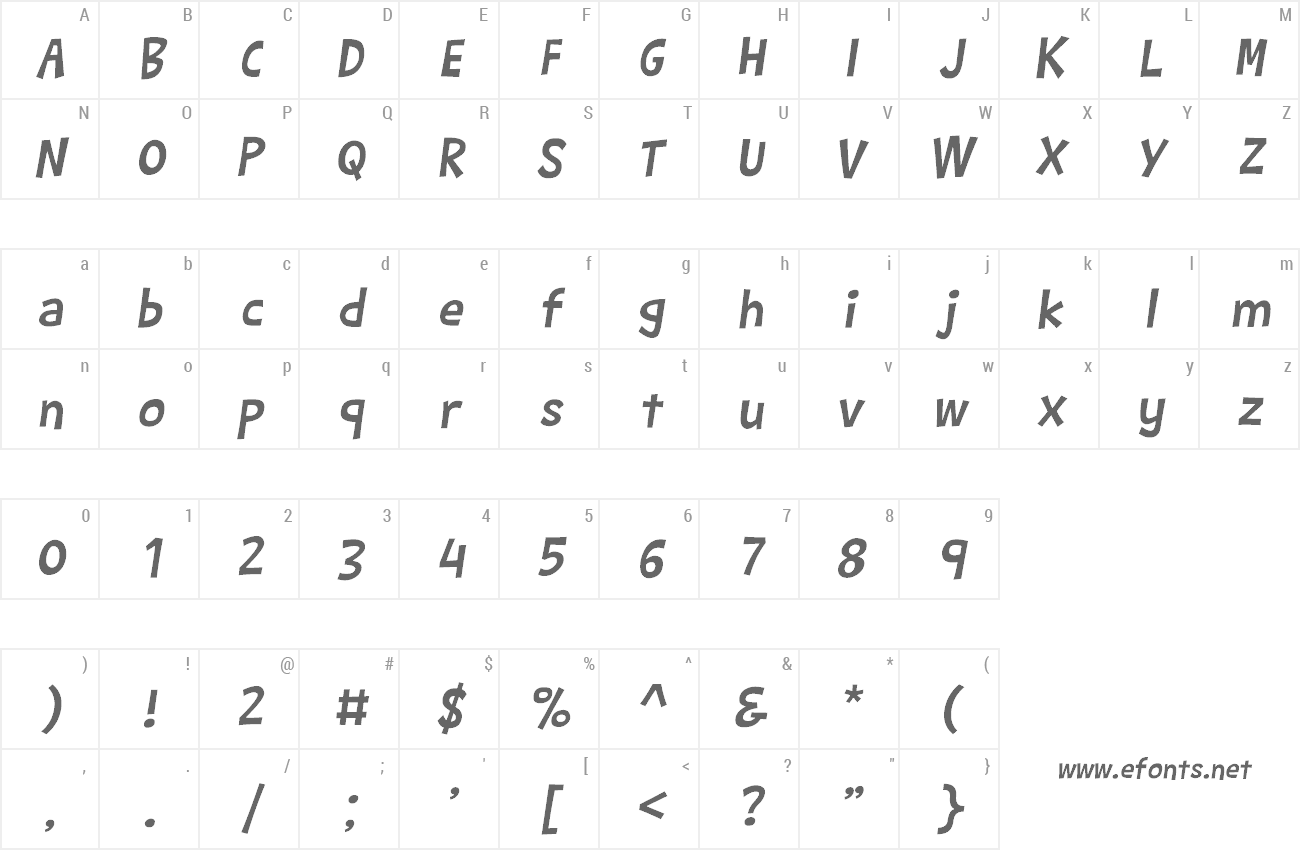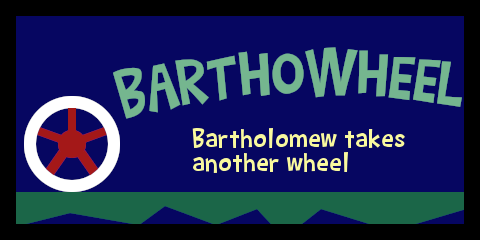
Created and Edited by: Jayvee D. Enaguas (Grand Chaos) Based from the cartoon title font from 'Bartholomew Versus the Wheel' (1964) © GrandChaos9000. Some Rights Reserved. |